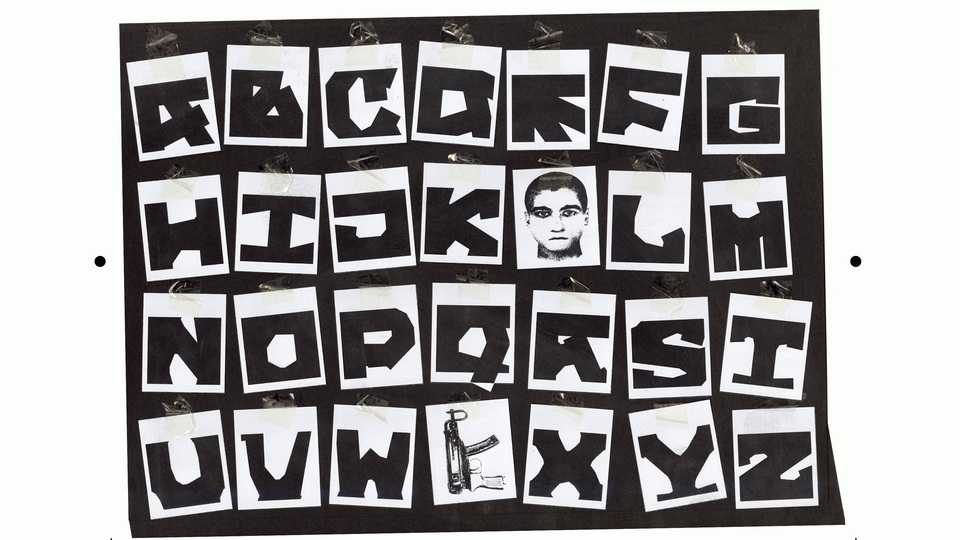
Download Slibinas font, a display typeface inspired by the letterform built by accident. Slibinas typeface turned out quite bold and aggressive, the name is chosen accordingly that means dragon in Lithuanian.